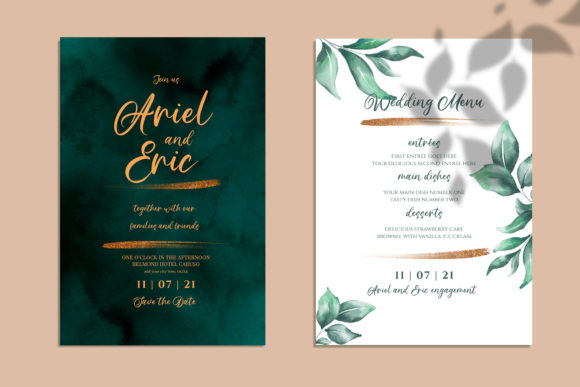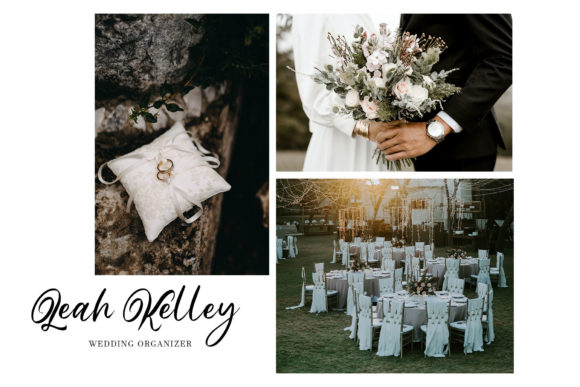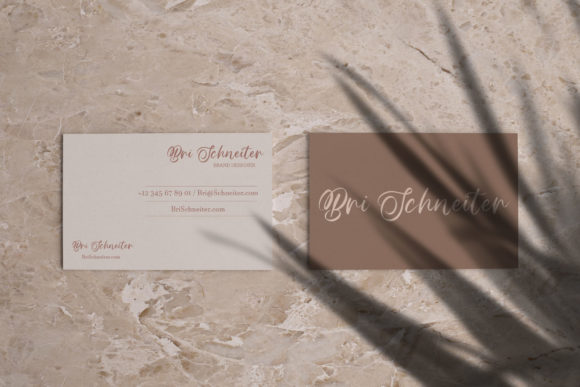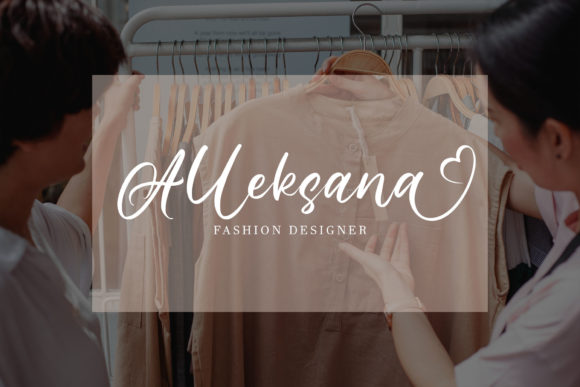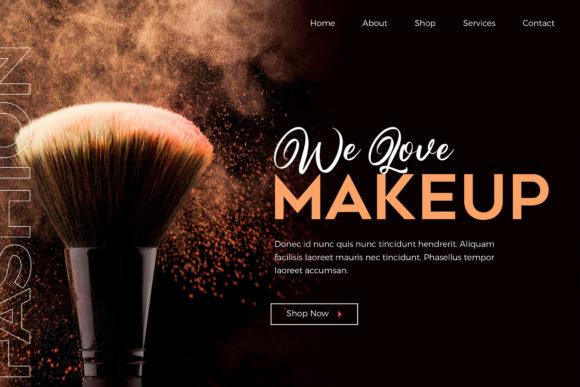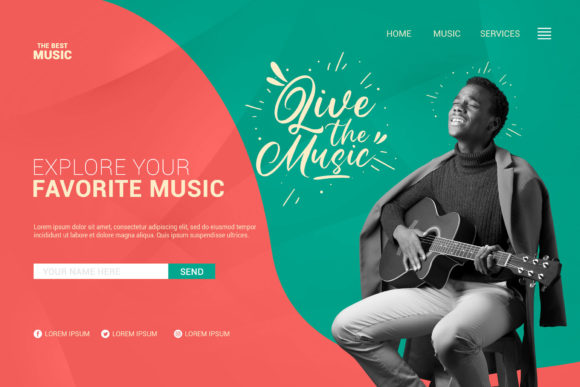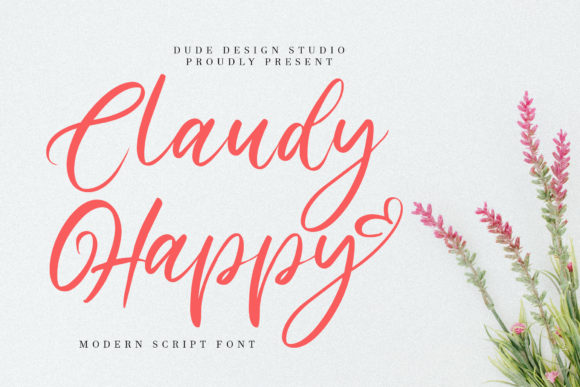
Discover the Charm of Claudy Happy Font: Elevate Your Designs with Luxury and Versatility
Are you on the hunt for a font that can add a touch of luxury and sophistication to your design projects? Look no further than Claudy Happy, a beautiful light handwritten font that is sure to capture your heart. With its unique feel and stunning impact, Claudy Happy is the perfect choice for designers and crafters who want to create spectacular designs that stand out from the crowd.
The Unique Characteristics of Claudy Happy Font
Claudy Happy is a one-of-a-kind font that boasts a distinctive light handwritten style. Its elegant and refined appearance makes it an excellent choice for a wide range of design projects, from branding and advertising to packaging and digital media. The font’s unique feel is characterized by its smooth, flowing lines and subtle imperfections, which give it a charming and organic look.
Adding a Luxury Spark to Your Designs
Claudy Happy is designed to add a luxury spark to any design project. Its sophisticated and refined appearance makes it perfect for creating high-end designs that exude elegance and sophistication. Whether you’re working on a luxury brand campaign, a high-end product packaging project, or a stylish website design, Claudy Happy is sure to elevate your designs to the next level.
The Versatility of Claudy Happy Font
One of the standout features of Claudy Happy is its incredible versatility. The font can be used in a wide range of design projects, from digital media to print materials. Its light and airy appearance makes it perfect for creating designs that require a subtle yet sophisticated touch. Whether you’re designing a social media graphic, a brochure, or a website, Claudy Happy is sure to adapt seamlessly to your design needs.
Why Designers and Crafters Love Claudy Happy Font
Designers and crafters love Claudy Happy for its unique style and versatility. The font is easy to use and pairs perfectly with a wide range of other fonts, making it a great addition to any design project. Its elegant and refined appearance makes it perfect for creating designs that require a touch of sophistication and luxury.
Tips for Using Claudy Happy Font in Your Designs
Here are a few tips for using Claudy Happy in your designs:
- Pair Claudy Happy with a bold font to create a striking contrast and add visual interest to your design.
- Use Claudy Happy as a headline font to add a touch of luxury and sophistication to your design.
- Experiment with different colors and textures to add depth and visual interest to your design.
In conclusion, Claudy Happy is a beautiful light handwritten font that is sure to capture your heart. Its unique feel and stunning impact make it the perfect choice for designers and crafters who want to create spectacular designs that stand out from the crowd. With its incredible versatility and elegant appearance, Claudy Happy is sure to elevate your designs to the next level. So why wait? Fall in love with Claudy Happy and start creating stunning designs today!
Whether you’re a seasoned designer or a crafty DIY enthusiast, Claudy Happy is a must-have font in your design arsenal. Its luxury spark and versatility make it the perfect choice for a wide range of design projects. So go ahead, get creative, and see the amazing things you can create with Claudy Happy!